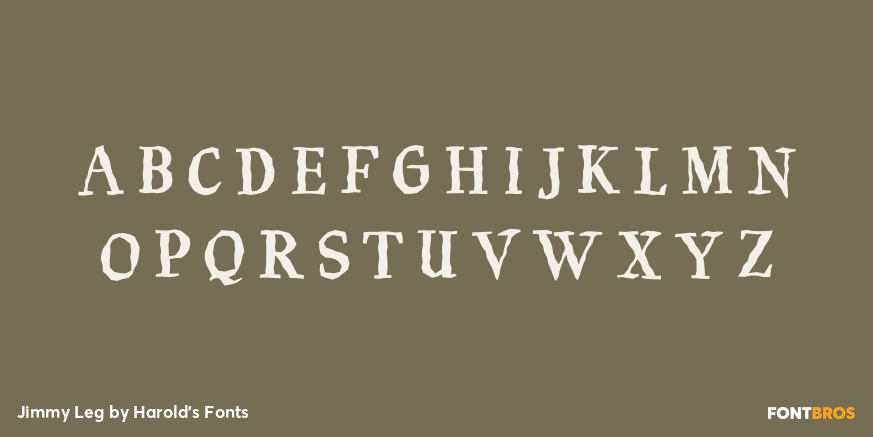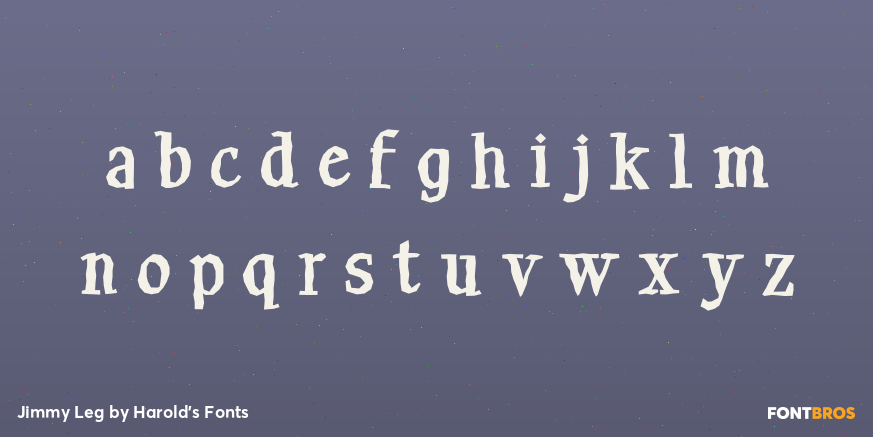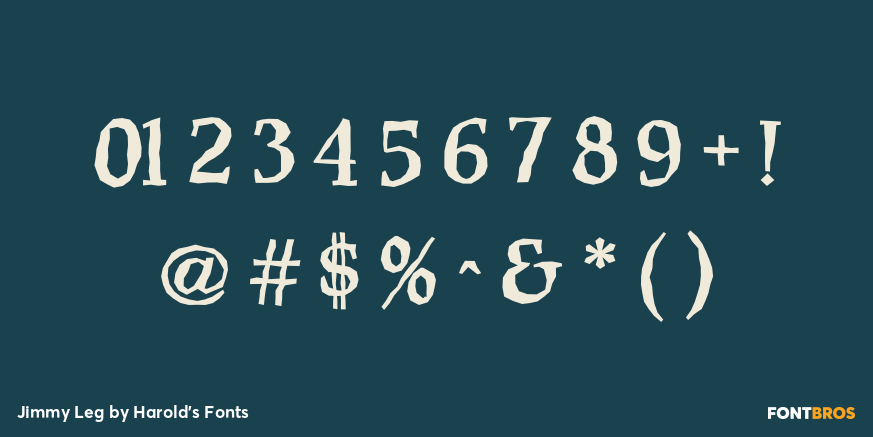
Jimmy Leg
Font Family by Harold's Fonts
JIMMY LEG is a serif font that mixes formality and casualness. The overall letterforms are solid and serious, but on closer look are abuzz with energy.